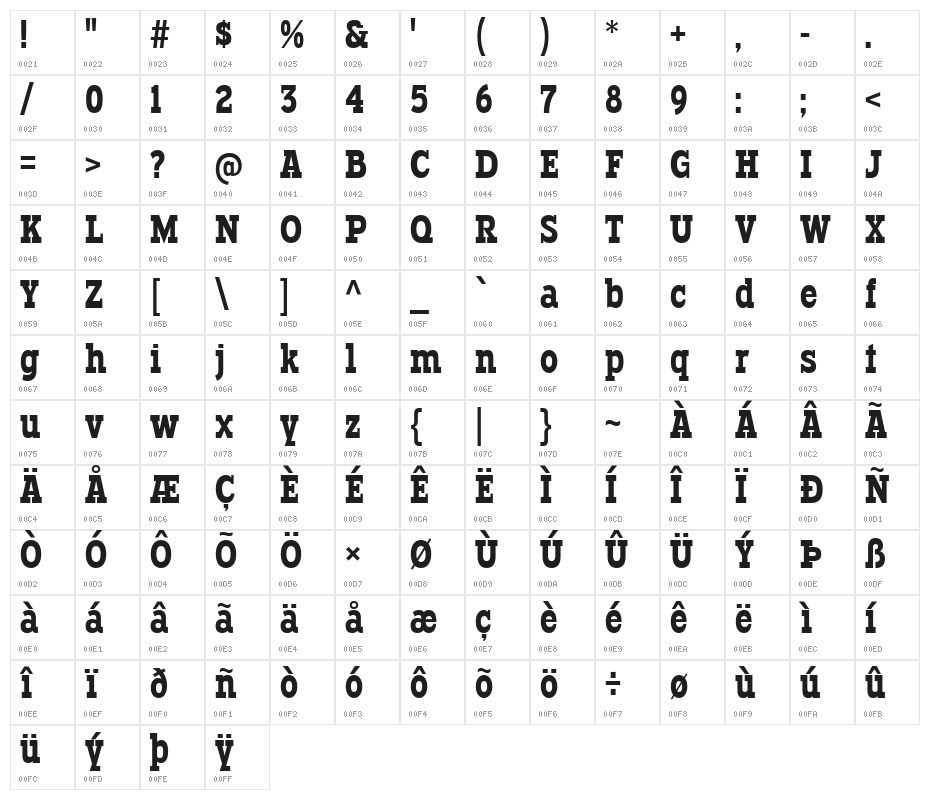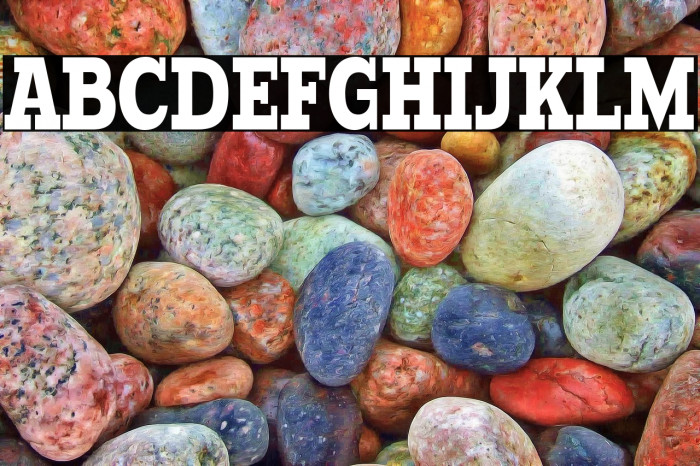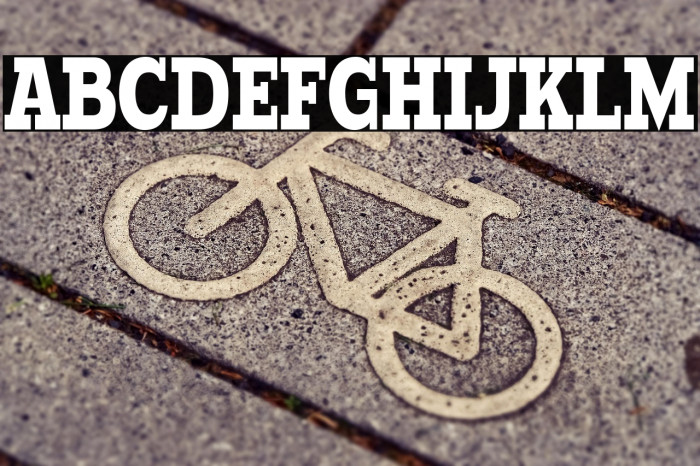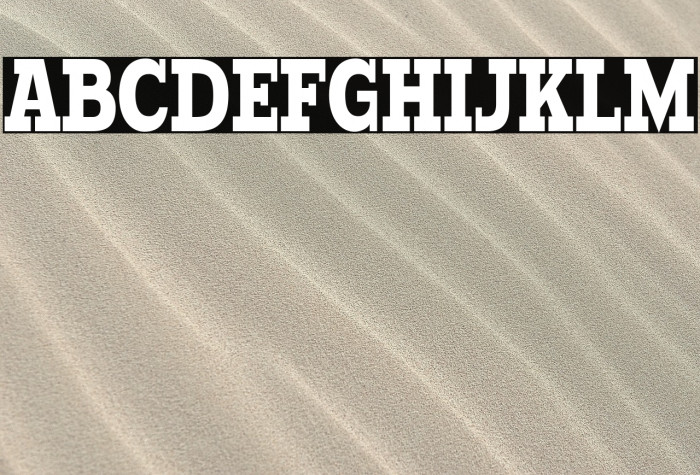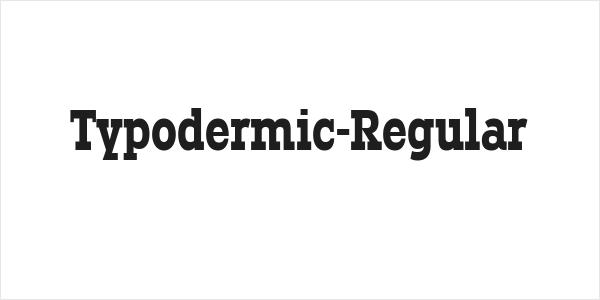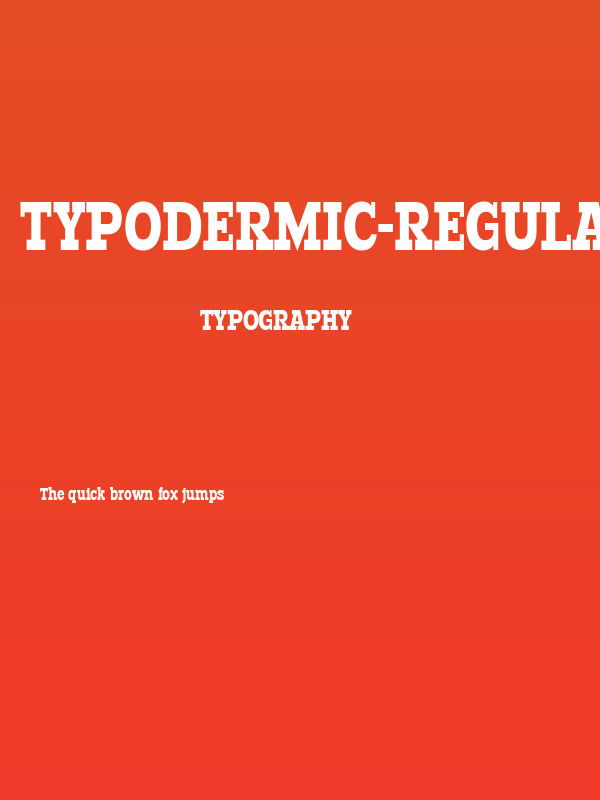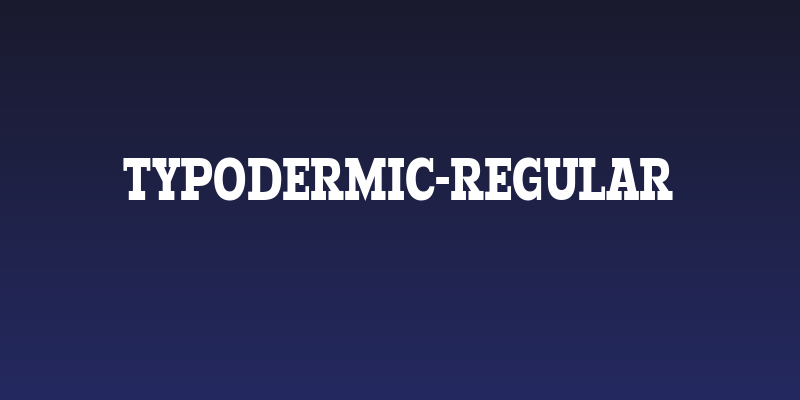
Typodermic-Regular Font
Typodermic-Regular Description
This font features bold, strong letterforms with a slab serif style, characterized by thick, block-like serifs. The uppercase and lowercase letters maintain a consistent weight, providing a robust and authoritative appearance. The numbers are equally bold, ensuring clarity and impact. Special characters are designed with the same boldness, making them stand out effectively. The overall design is clean and modern, suitable for making a strong visual statement.